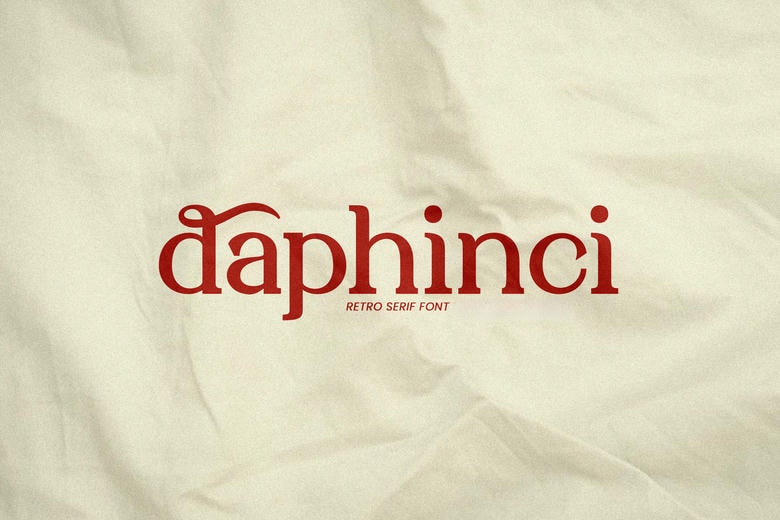
Daphinci Font
Daphinci is a retro serif font that combines nostalgic charm with a modern touch. Its stylish curves and vintage-inspired details make it a great choice for headlines, posters, logos, and branding that need a classic yet fresh look.
Daphinci Serif Font